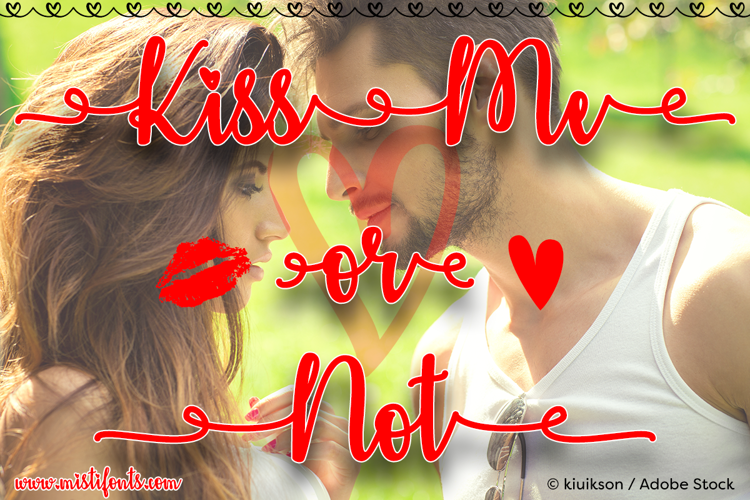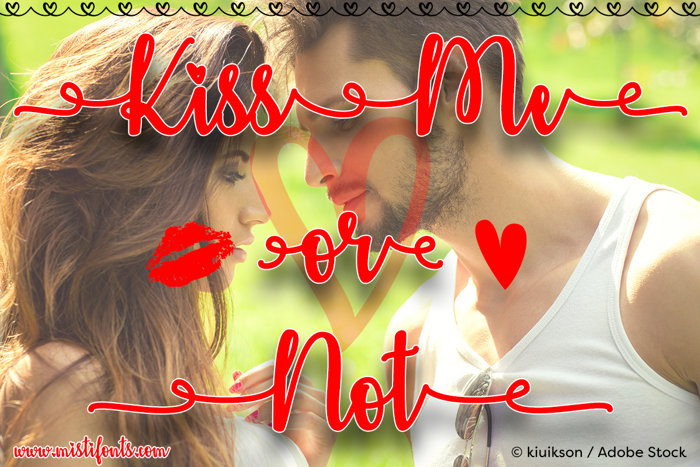
Kiss Me or Not Font
About Kiss Me or Not Font
Special Symbols
Type * (asterisk) for the lips
Type \ (back slash) font the heart border (also connects between letters)
Type _ (underscore) for swash that connects letters Kiss_Me
Type | (vertical bar) for solid heart
Type ~ (tilde) for open heart
Type [] (brackets) for small swashes or
Type {} (curly braces) for medium swashes {Kiss Me}
Type () (parentheses) for big swashes (Not)